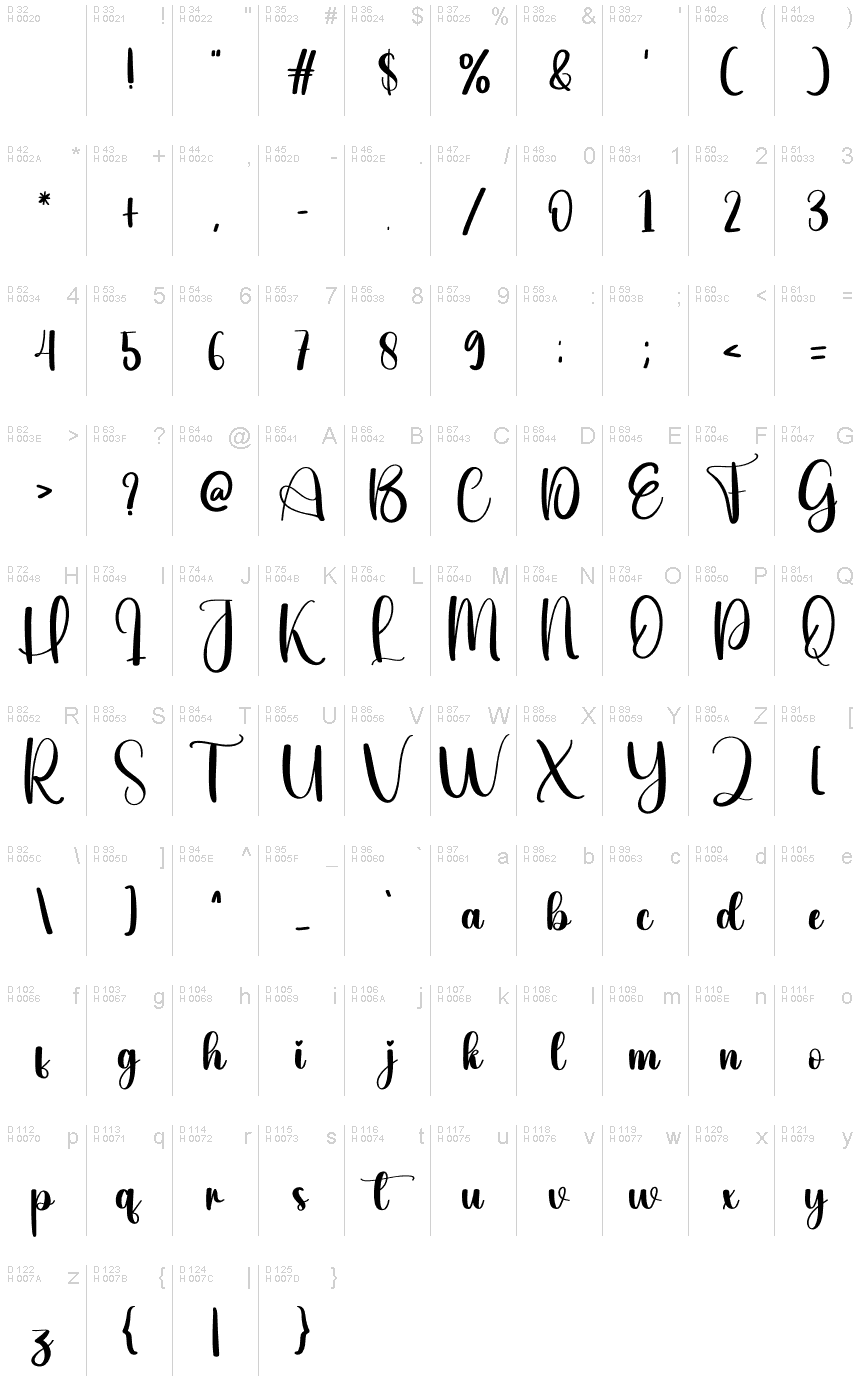
Dream
Dream, designed by Scratchones, is a handwritten font that exudes a sense of personal touch and creative freedom. Its fluidity and elegance reflect the intimate characteristics of human handwriting, making it an exceptional choice for projects that require a bespoke and artisanal feel. The sweeping curves and varying stroke weights of Dream add a dynamic rhythm to text, capturing the spontaneity of ink on paper.
The font's aesthetic appeal lies in its balance between readability and stylistic flair, making it versatile for both digital media and print. Whether used in logo design, invitations, or editorial content, Dream brings an organic warmth to words that resonates with audiences seeking authenticity.
Its handwritten style lends itself wonderfully to branding initiatives looking to establish a connection through approachable elegance. With its distinctive character and stylish appearance, Dream is poised to elevate your creative projects with its unique blend of sophistication and charm.
The font's aesthetic appeal lies in its balance between readability and stylistic flair, making it versatile for both digital media and print. Whether used in logo design, invitations, or editorial content, Dream brings an organic warmth to words that resonates with audiences seeking authenticity.
Its handwritten style lends itself wonderfully to branding initiatives looking to establish a connection through approachable elegance. With its distinctive character and stylish appearance, Dream is poised to elevate your creative projects with its unique blend of sophistication and charm.